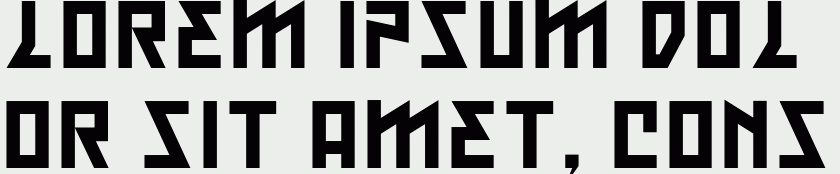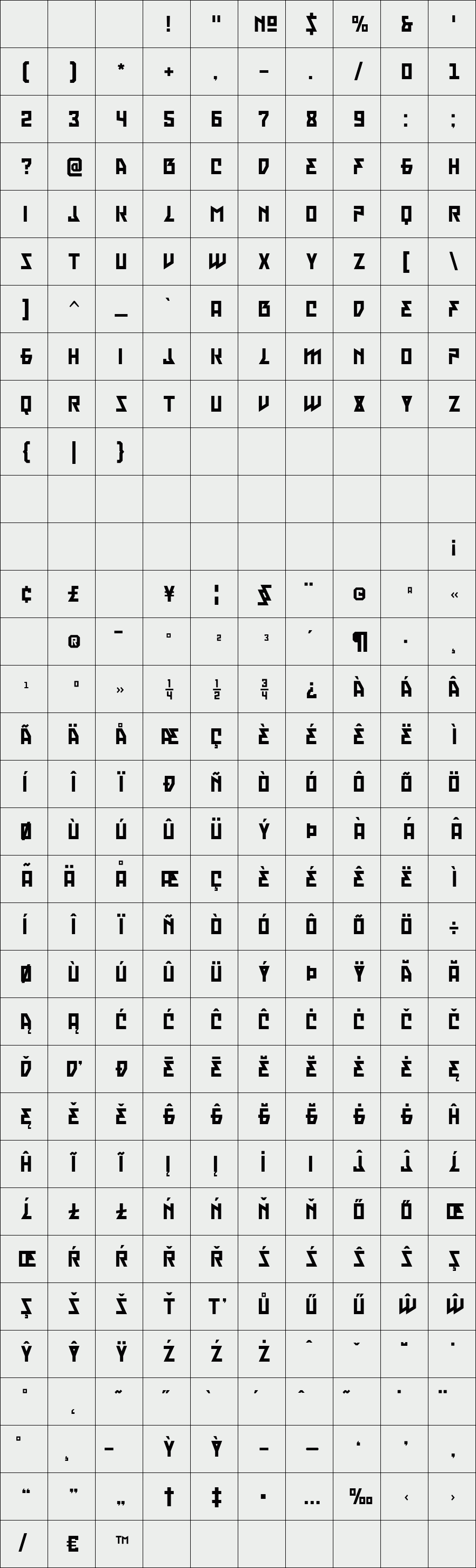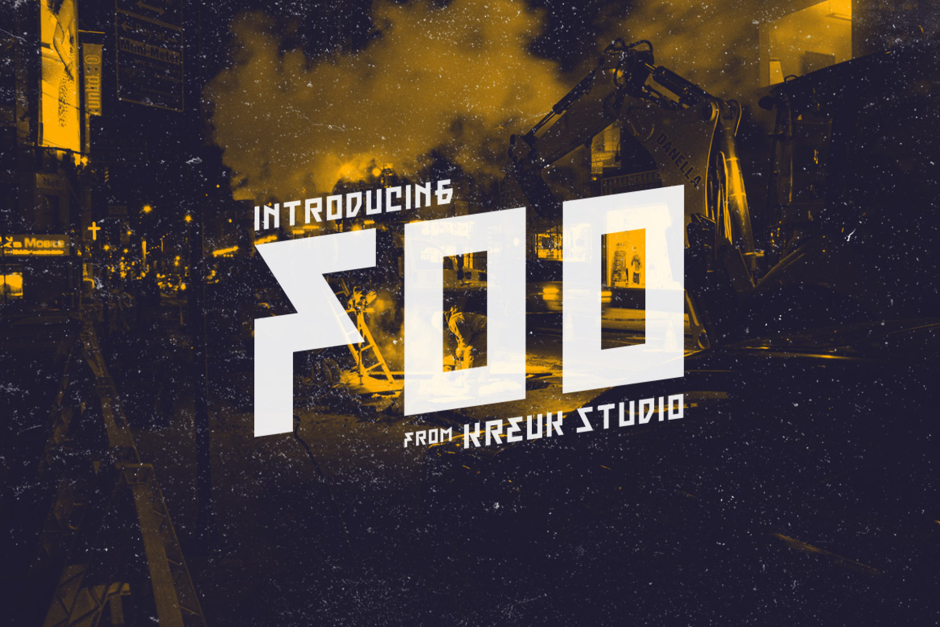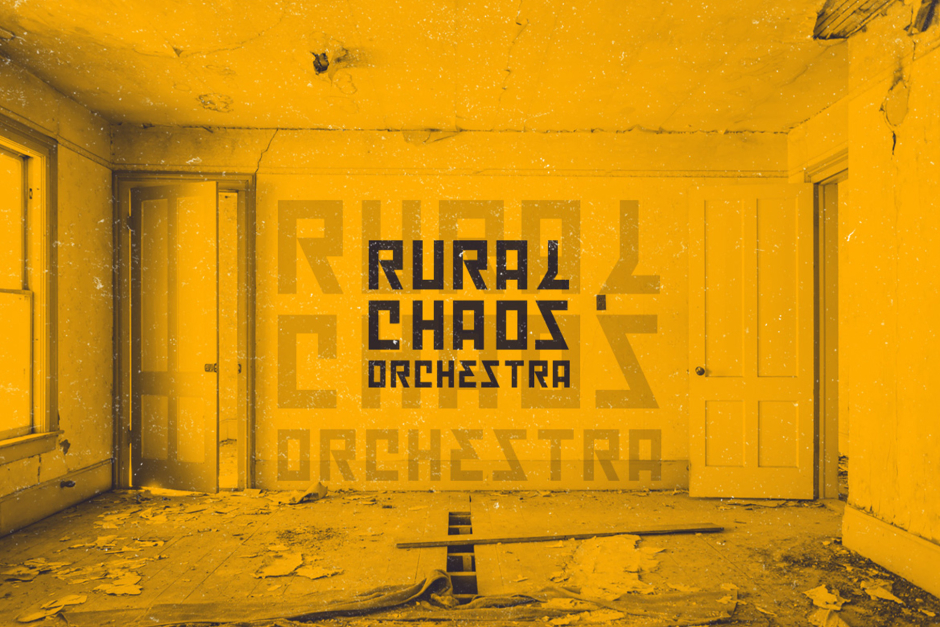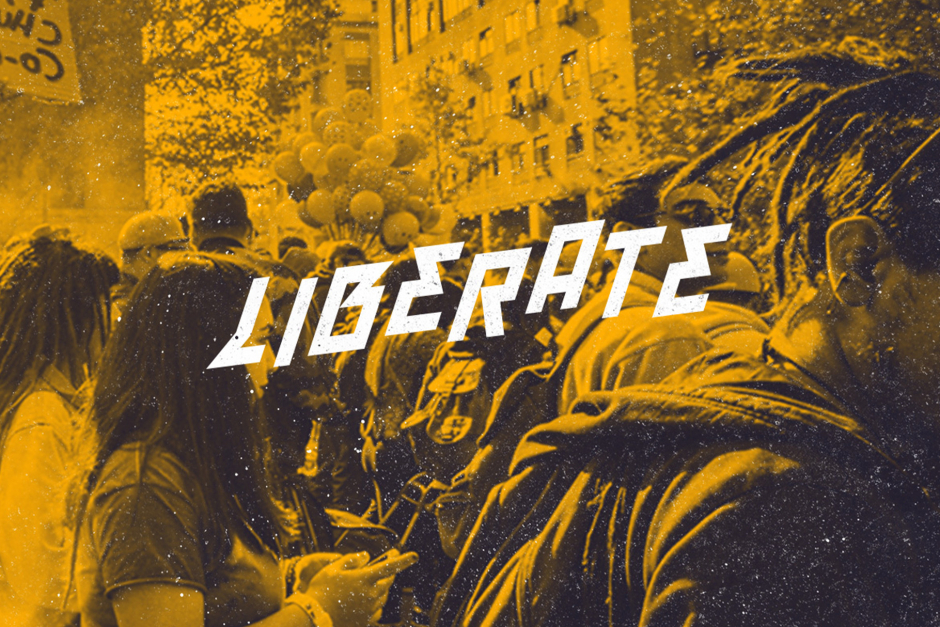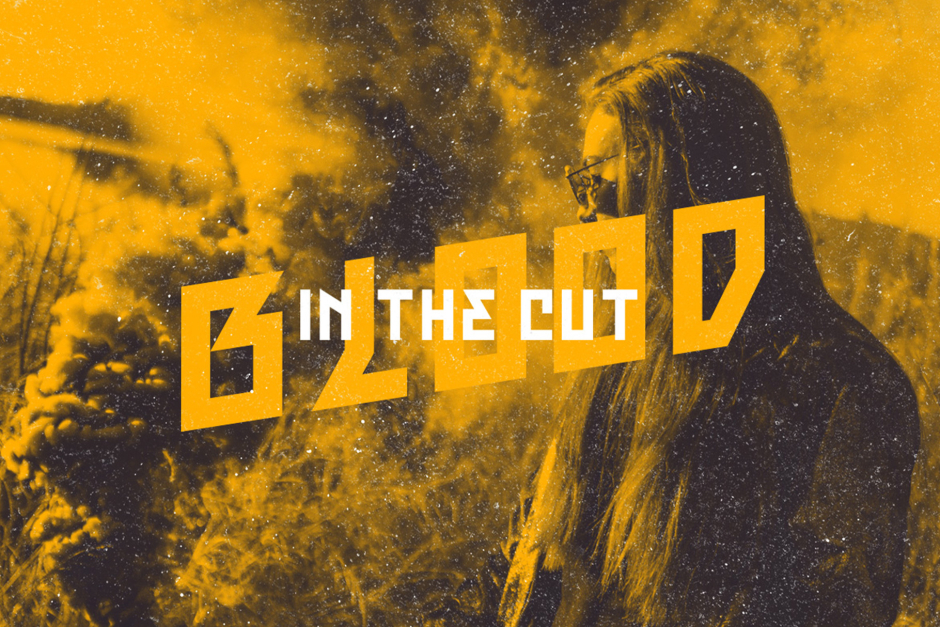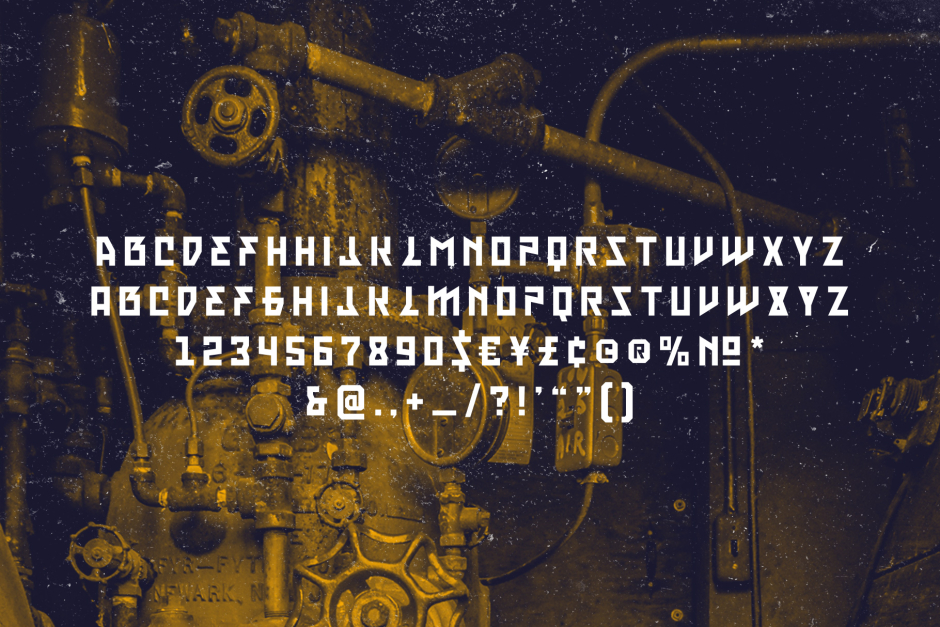
KS Foo
KS Foo is Display typeface with countless possibilities. Sub-culture inspired display with sharp & striking form display. From Gigs posters to skateboard to clothing industries. Ideally suited for headline, logo, branding, posters etc.